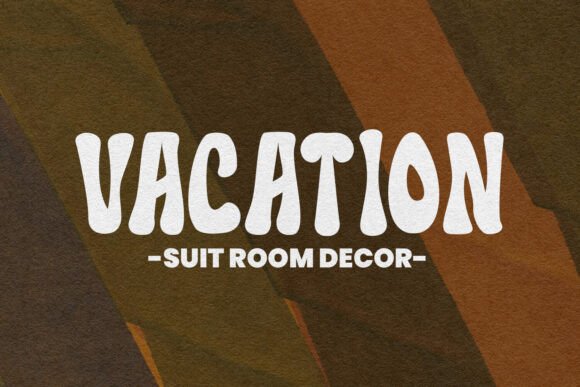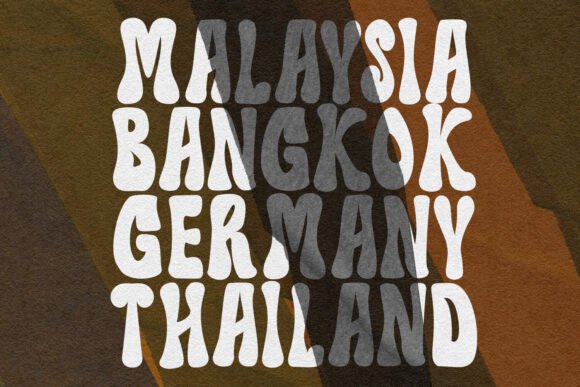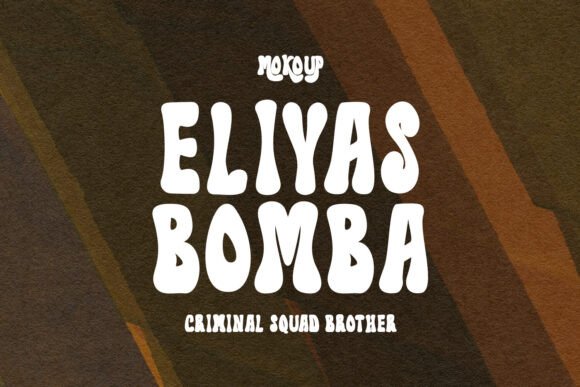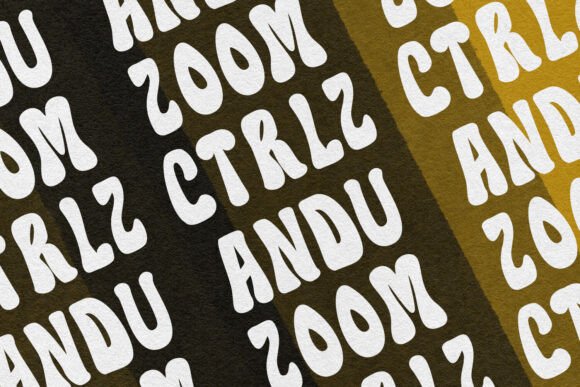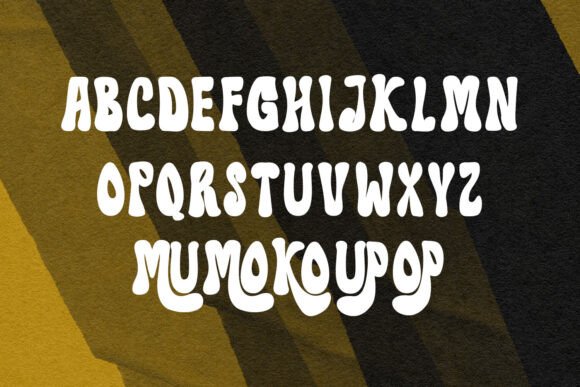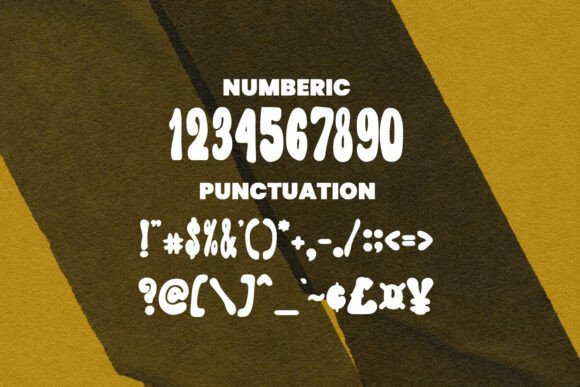
Introduction to Mokoup Font
Have you ever been stuck on a design project, searching for the perfect font to bring your creative vision to life? I know I have! It was on one such occasion that I stumbled upon the Mokoup Font, a charming handmade display font that stole my heart with its unique and playful style.
As a designer, I can attest that finding the right font can make all the difference in a project. And Mokoup Font is definitely a valuable addition to any design resource. With its irregular shapes and personal touch, this font exudes a warm, friendly feel that’s perfect for invitations, posters, and any other creative project. Plus, with its transparent background, you can easily layer it over other design elements to create a high-quality look.
Key Features of Mokoup Font
- High-quality, professional font design ideal for creative projects and design resources.
- Designed with a unique, modern aesthetic that sets it apart from other fonts in its class.
- Includes a comprehensive character set, covering a wide range of languages and characters.
Honest Review: Mokoup Font
I recently stumbled upon the Mokoup Font and was excited to give it a try. As a designer, I’m always on the lookout for high-quality design resources to enhance my creative projects. One of the standout features of the Mokoup Font is its sleek, modern aesthetic, which makes it perfect for a variety of design applications.
- ✨ The font’s high-quality design makes it perfect for creative projects.
- ✨ The font is highly customizable, allowing for a wide range of design possibilities.
- Limitations:
- ⚠️ The font may not be suitable for use in print materials due to its digital design.
- ⚠️ The font’s high-quality design may make it difficult to read on certain screens.
Overall, I’m impressed with the Mokoup Font and would highly recommend it to designers looking for a high-quality design resource. While it may have some limitations, its sleek aesthetic and customizable design make it an excellent choice for a variety of creative projects.
Tips for Getting the Most Out of Mokoup Font
Use Mokoup Font in combination with other design elements, such as images and graphics, to create a visually appealing design. Experiment with different font sizes and styles to achieve the desired effect. Consider using the transparent background feature to create a cohesive design.
Mokoup Font is ideal for use in creative projects, such as logos, brochures, and business cards. Its high-quality design makes it perfect for use in presentations, documents, and websites. The free download of Mokoup Font makes it an accessible design resource for designers and non-designers alike.